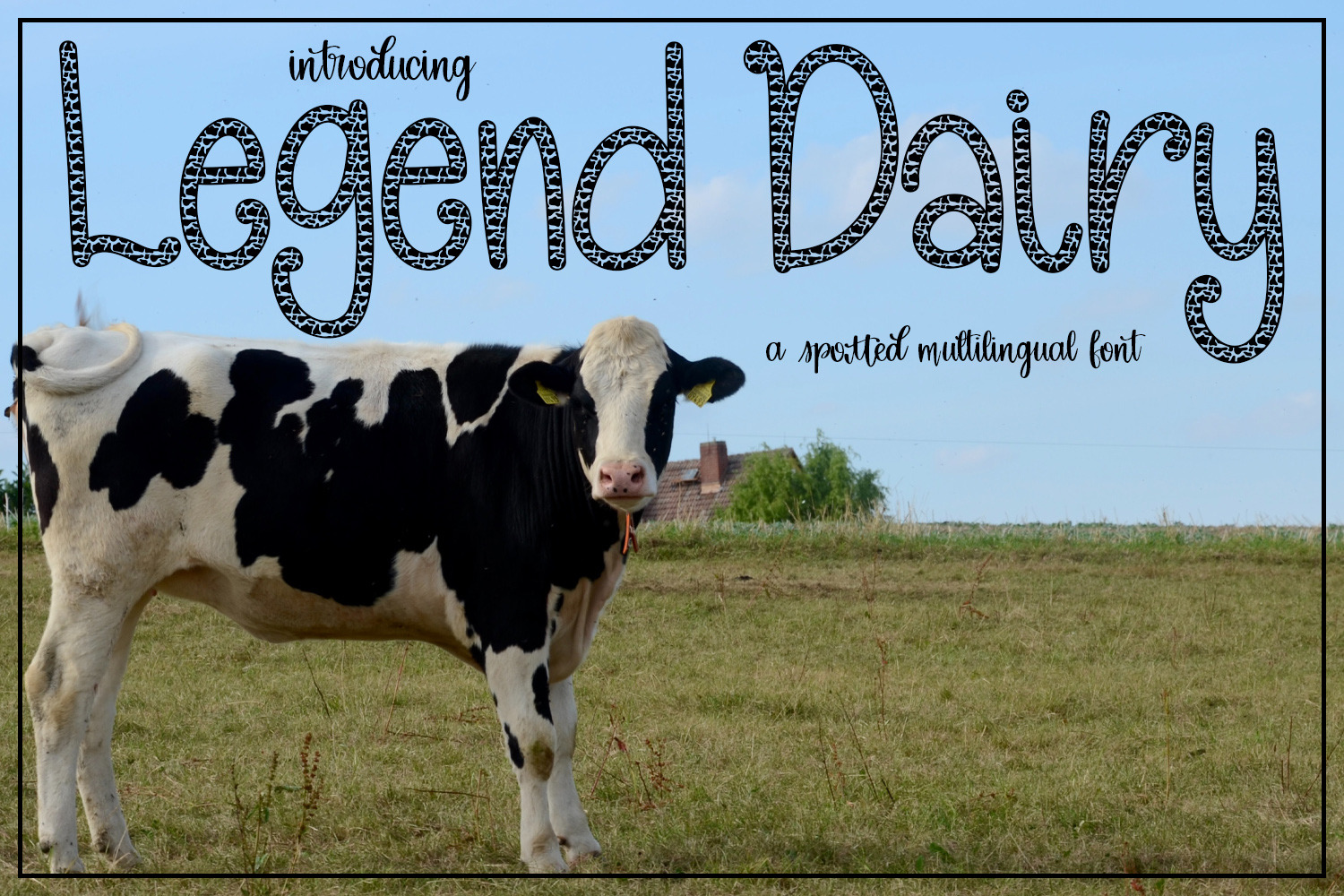
Legend Dairy - A Cow Print Font
Introducing my unique and one-of-a-kind font creation, inspired by a Cow Print Procreate Brush that I discovered through my Plus Membership. This font is truly a standout, as there are currently no other cow print fonts available on the market (and perhaps for good reason). It embraces the charm of cow spots while pushing the boundaries of typographic design.
Due to the intricate nature of the cow spots, this font contains an abundance of anchors and nodes, resulting in thousands of intricate details. As a result, I do not recommend using this font for cutting on vinyl cutting machines. While it may work for some, it was primarily created with sublimation in mind. So, if you're looking to bring the delightful allure of cow prints to your sublimation projects, this font is an ideal choice.
Embrace the whimsical charm of cow prints with this unique font creation. Let your imagination run wild as you incorporate this font into your designs, adding a touch of bovine-inspired delight. Whether it's crafting eye-catching sublimation projects or adding a playful twist to your digital creations, this font is sure to make a statement. Don't miss out on the opportunity to bring the captivating essence of cow prints to your design toolkit.